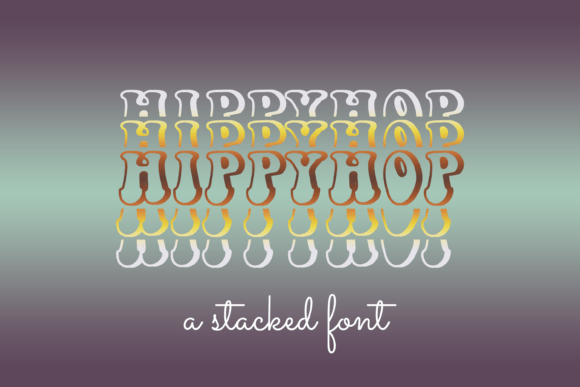
Journey into the world of Hippy Hop, a display font that's anything but ordinary. Crafted with meticulous attention to detail by the renowned WADLEN, Hippy Hop is an aesthetic masterpiece that exudes charm, playfulness, and a touch of whimsy. It's the perfect font for those who dare to be different, who seek fonts that mirror their own unique personality.
Welcome to a realm where creativity knows no bounds, where each letter dances off the page, captivating your audience with its captivating curves and lively strokes. Whether you're a seasoned designer or just starting your creative journey, Hippy Hop will elevate your projects to new heights.
Picture this: a stunning logo that leaves a lasting impression, a captivating social media post that makes your feed pop, or a one-of-a-kind invitation that sets the tone for an unforgettable event. With Hippy Hop as your font of choice, you'll create designs that ignite imaginations and leave your audience spellbound.
Dive into the world of Hippy Hop and let your creativity roam free. This font is your passport to a realm of endless possibilities, where your ideas take center stage. Embrace the magic of Hippy Hop and watch your creative visions come to life in vibrant, eye-catching splendor.